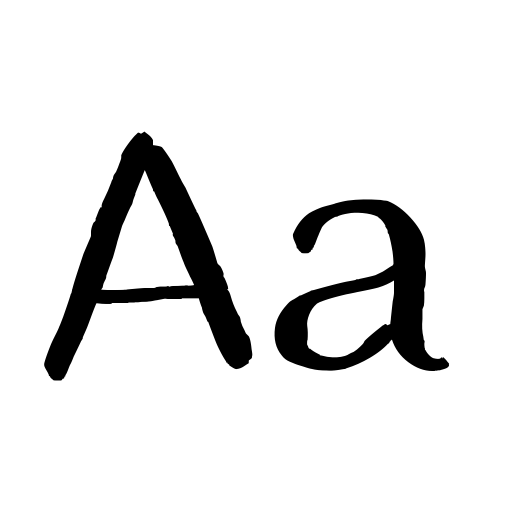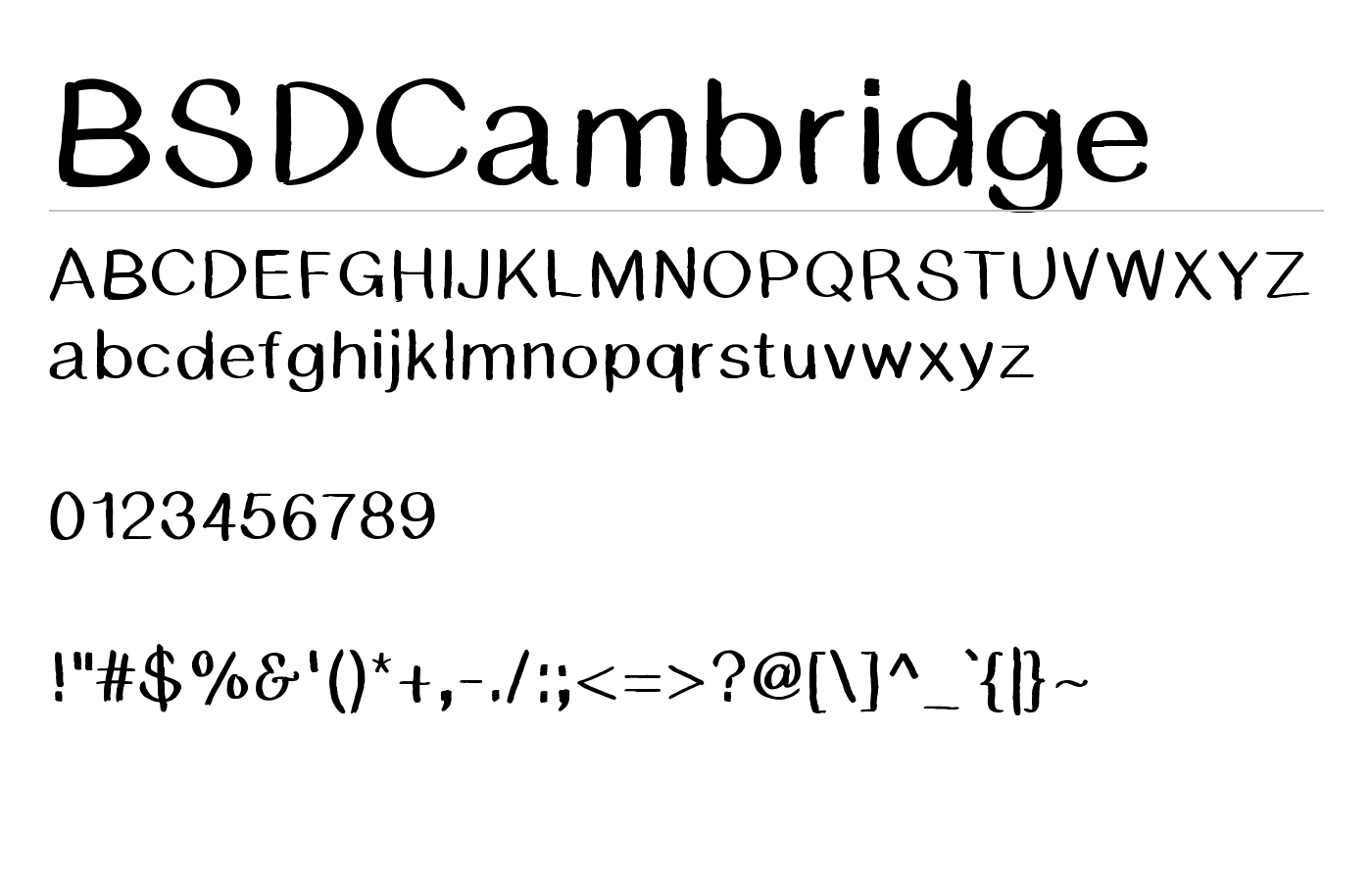
BSDCambridge is a playful and informal handwritten serif font with an uneven, organic texture that adds warmth and personality. Featuring irregular stroke widths and quirky letterforms, it conveys a friendly, approachable vibe perfect for creative projects, casual branding, and editorial work that seeks a human touch. Its distinctive style makes it ideal for headlines, invitations, and packaging that want to stand out with a charming, hand-crafted feel.
BSDCambridge Font
About BSDCambridge Font